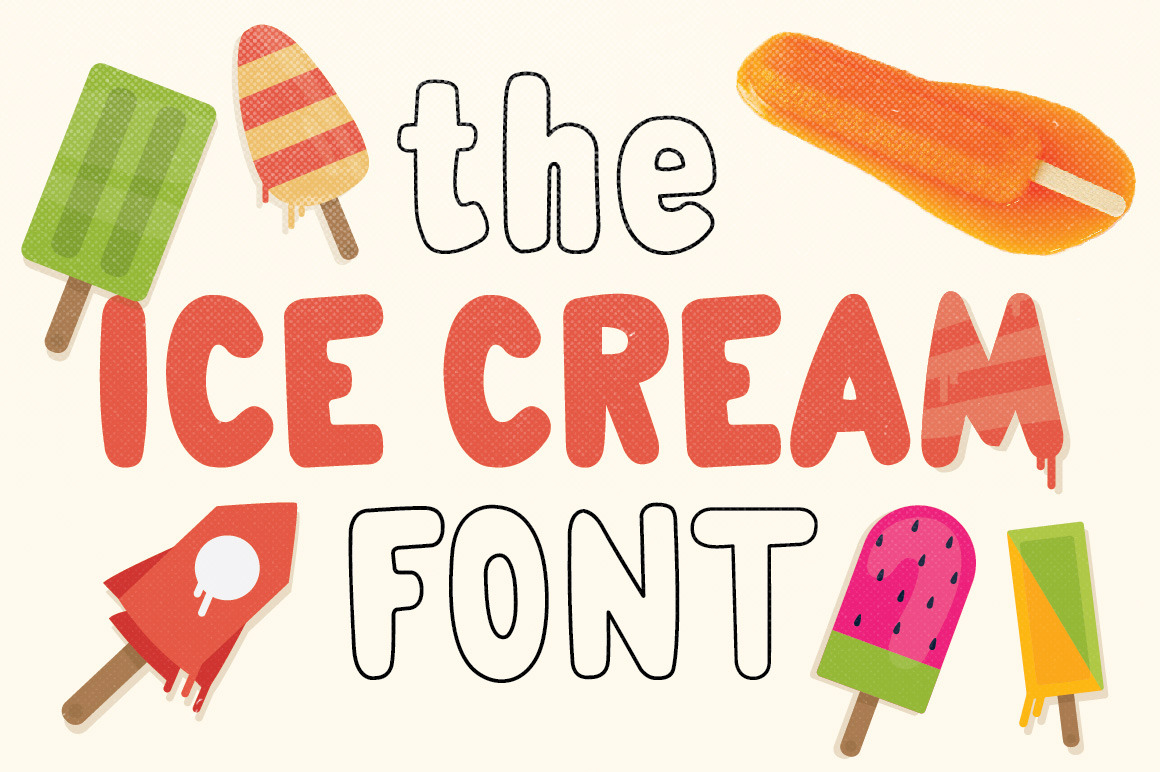
The Ice Cream Font
This is probably the yumiest font you have ever worked with. Two-weight font family gives your work unique, fresh & tasty feel. Including lowercase, uppercase - all English characters. Plus extra collection of popsicle illustrations included. Inspired by ice cream.